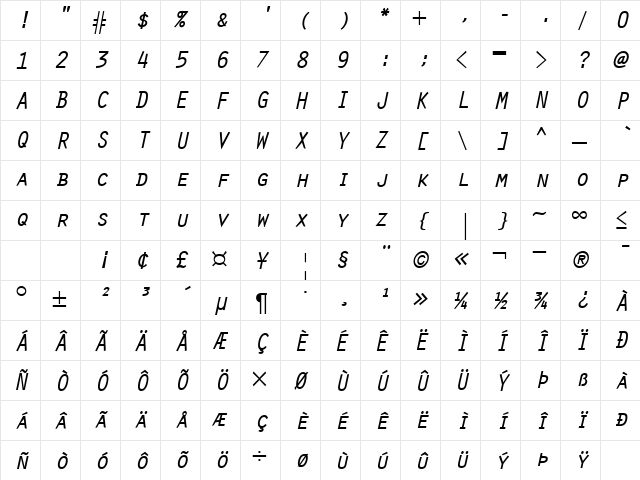
Orator RegularItalic
Design Context for Orator Typeface
Orator offers clean, dependable letterforms without strong stylistic allegiance, making it a practical choice for designers who need flexibility. Its italic angle brings a sense of urgency and motion to the letterforms.
Pro Tip: Use Orator for emphasis, pull quotes, and subheadings where its slanted energy can add rhythm to the layout.